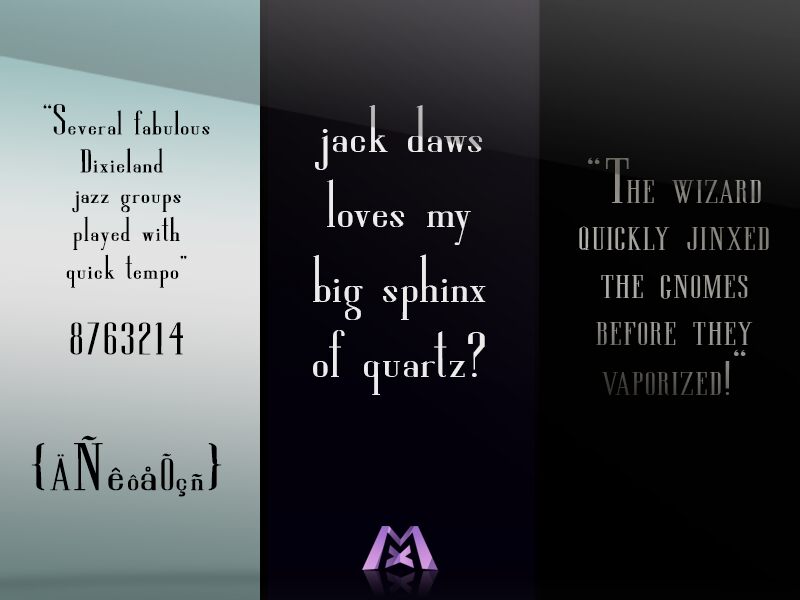
Derivative work based on Altsys Metamorphosis' (defunct) font, Edition. Characters aren't as high, & there are a bunch of special characters, , $, , & lowercase letters. My first font experiment :)
Derivative worked based on Altsys Metamorphosis' "Edition" font. Violet's first attempt at making a new font.
High So Serious